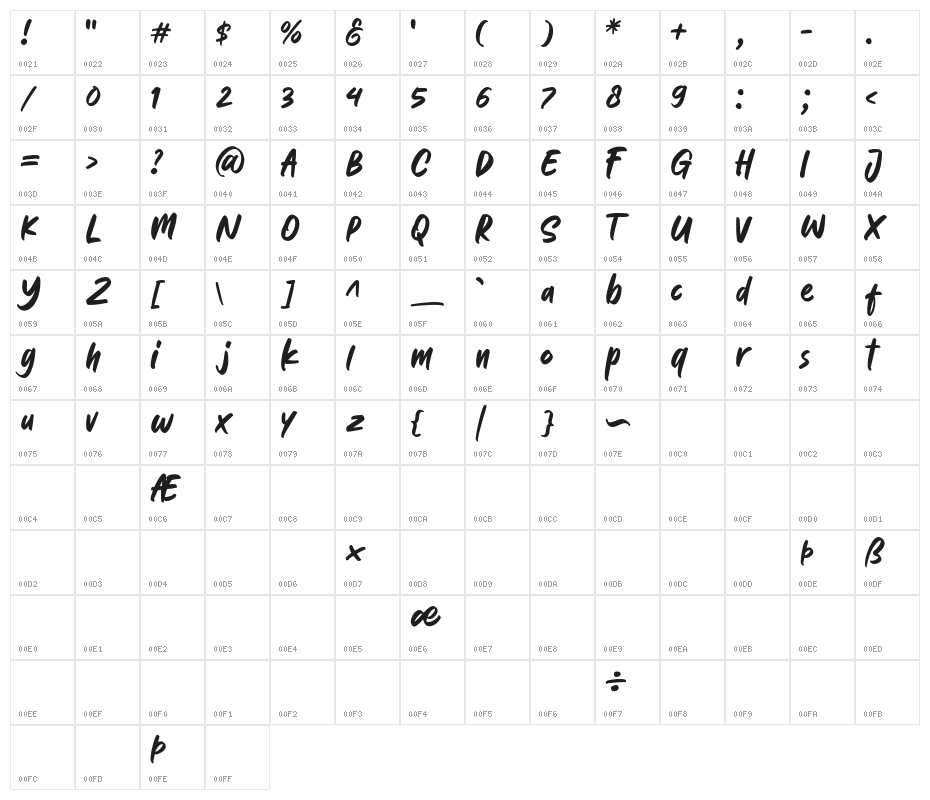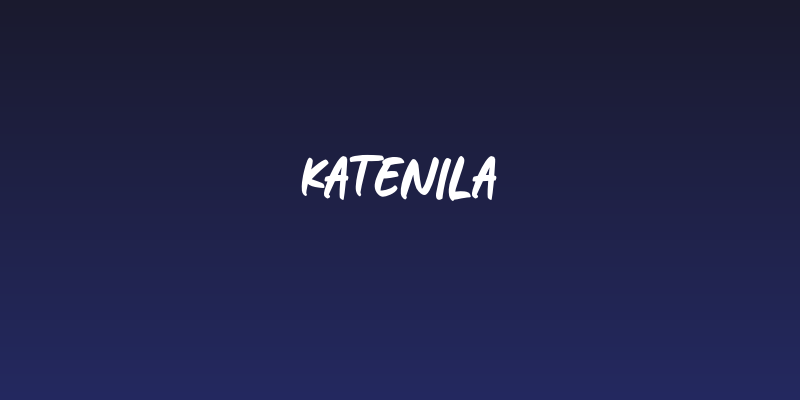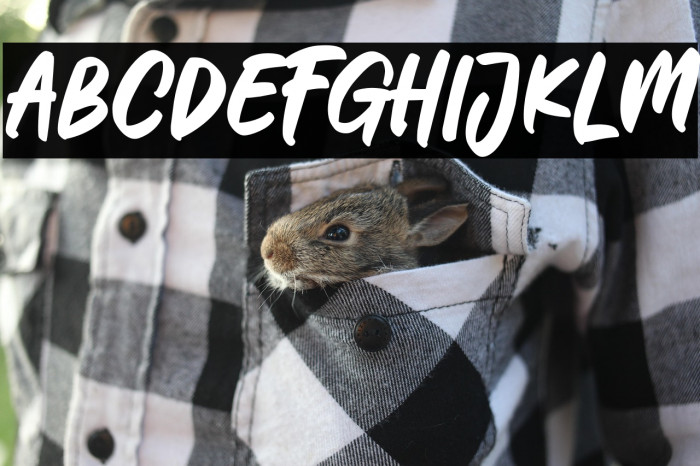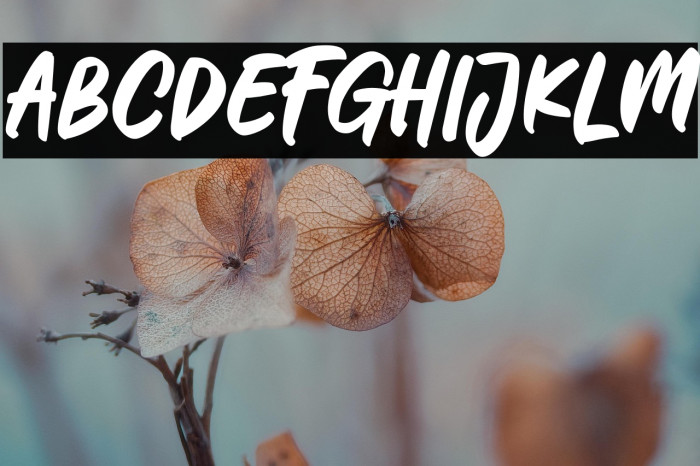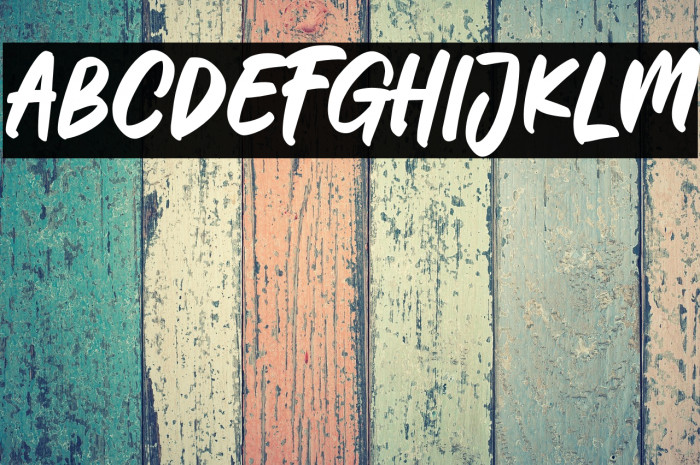
Katenila Font
Katenila Description
This font features a bold and energetic script style, characterized by its thick, flowing strokes and dynamic curves. The letters are connected in a way that mimics natural handwriting, giving it a personal and informal feel. The uppercase letters are slightly larger and more pronounced, while the lowercase letters maintain a consistent flow. Numbers and special characters are designed to match the lively style of the alphabet, ensuring a cohesive look across all text. The overall appearance is playful yet legible, making it suitable for various creative applications.